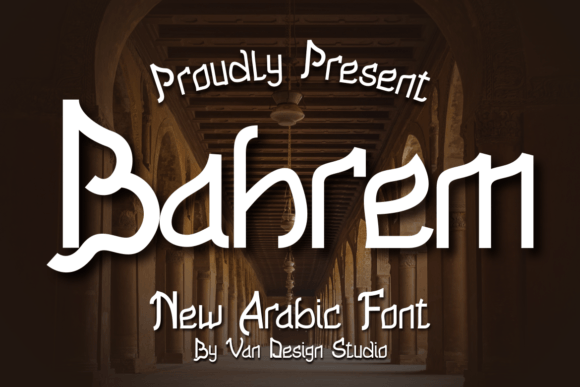
Introduction to Bahrem Font
Bahrem is an incredibly cool and unique display font.
It has a modern yet whimsical style and it will undoubtedly immerse your designs into a magical world .